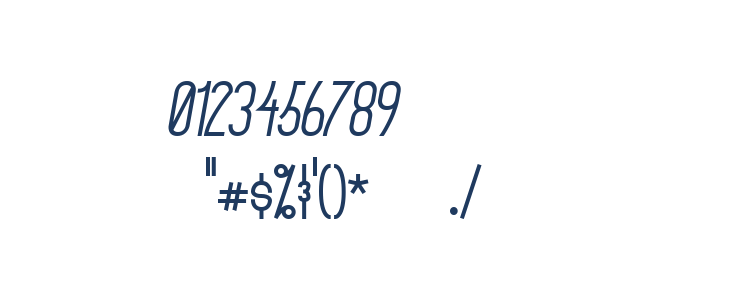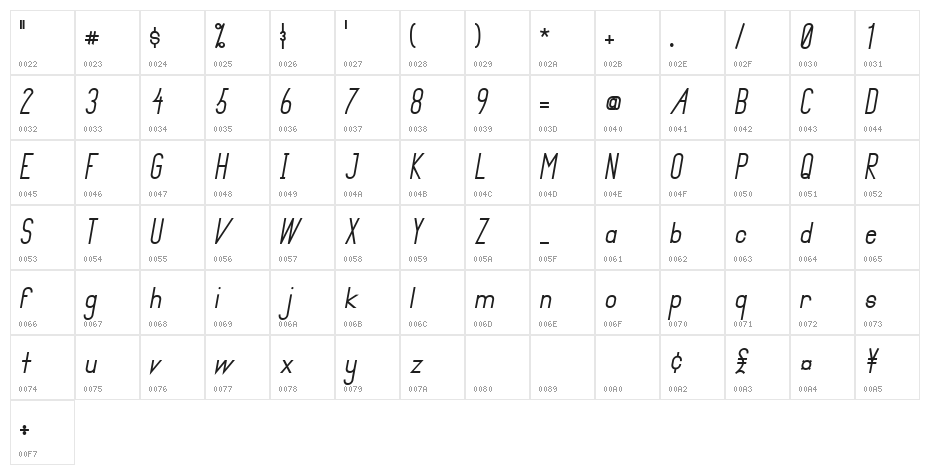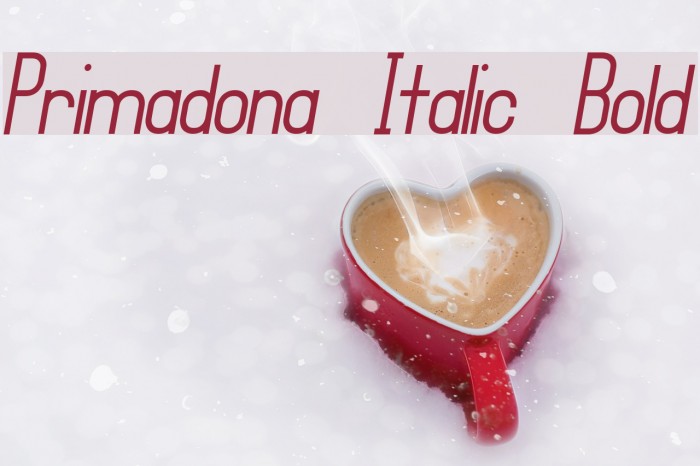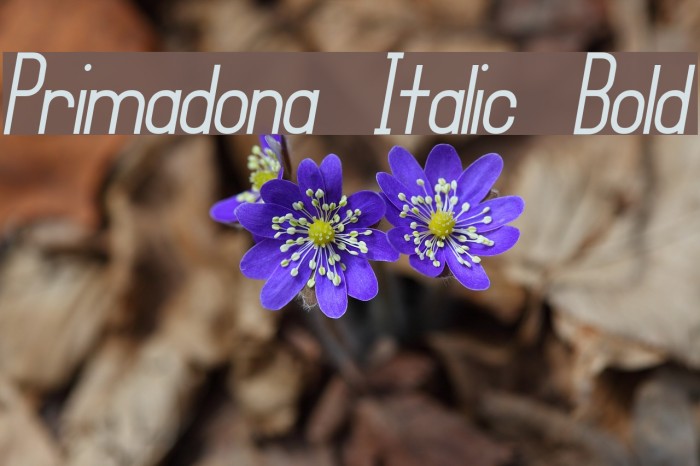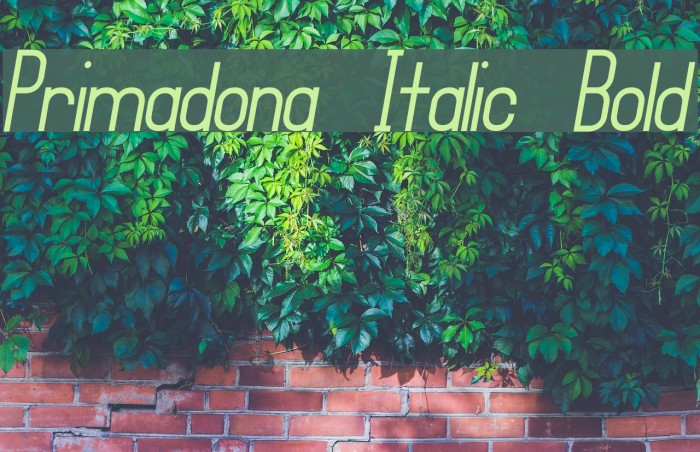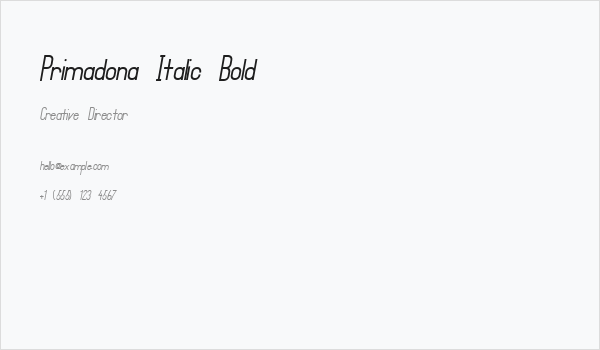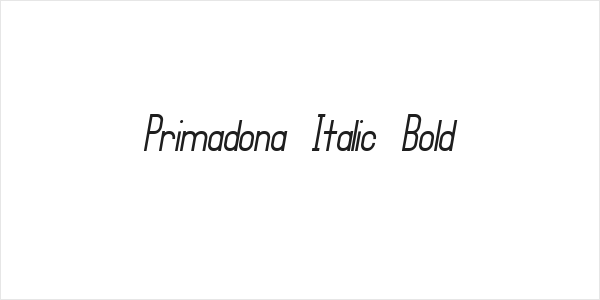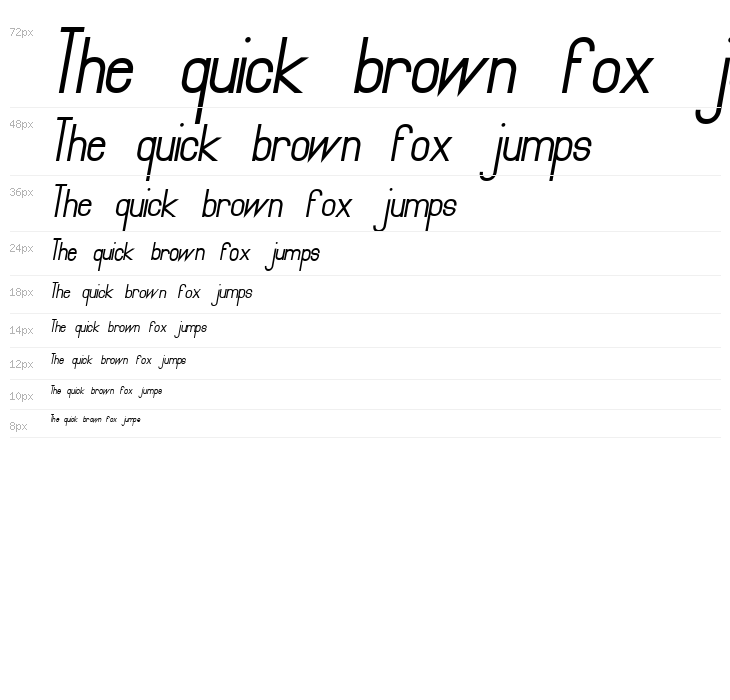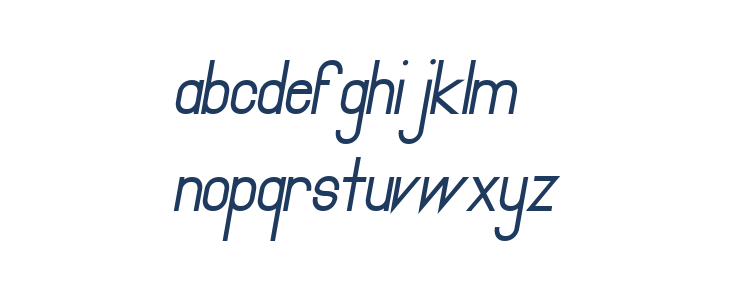
Primadona Italic Bold Font
Primadona Italic Bold Description
This font features a sleek, italicized style with bold characteristics, giving it a dynamic and modern appearance. The uppercase letters are tall and narrow, with a slight slant that adds a sense of movement and elegance. The lowercase letters maintain this slant, offering a cohesive look across different text sizes. Numbers are consistent with the letterforms, providing a uniform appearance. Special characters are designed to match the overall aesthetic, ensuring they integrate seamlessly into any text. The font's bold weight and italic style make it ideal for creating emphasis while maintaining readability.